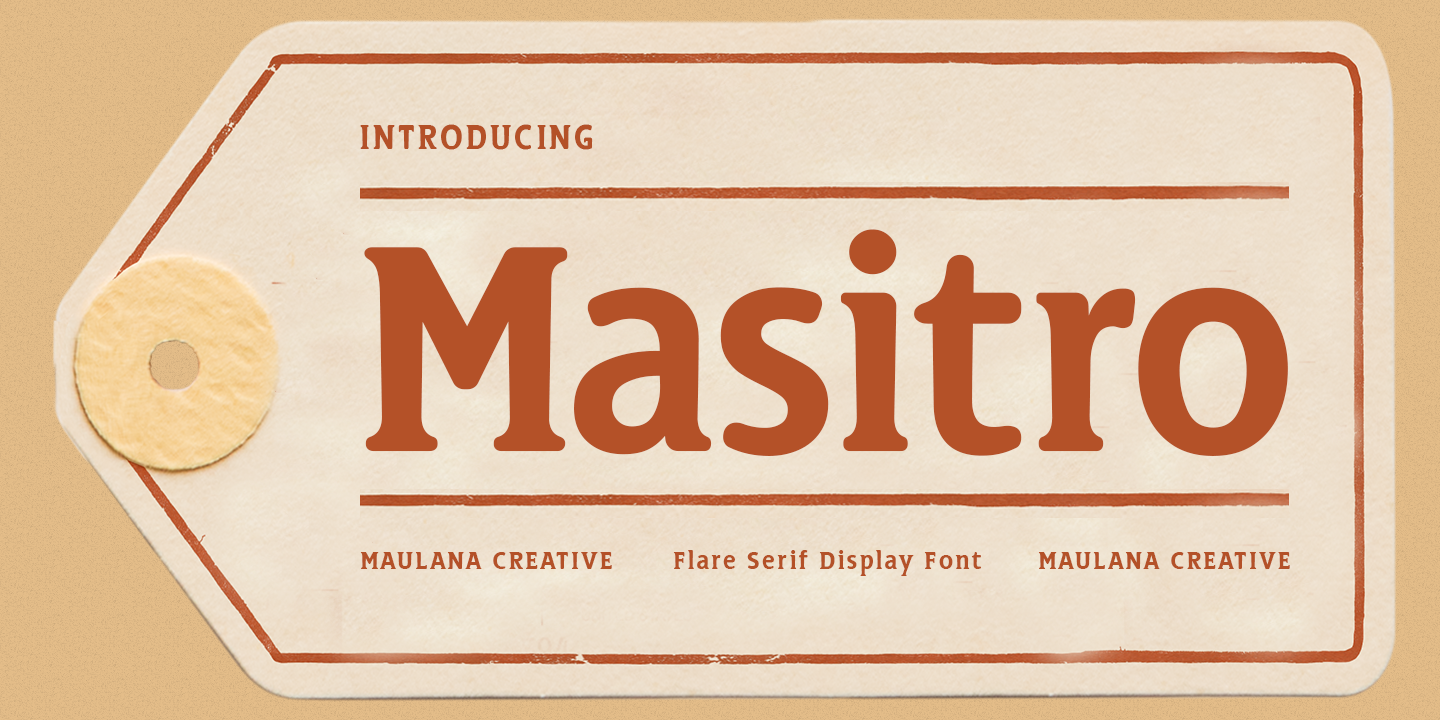
MC Masitro Font is perfect for hip-hop artist branding, urban music events, street culture campaigns, rap battle graphics, underground music venues, urban fashion labels, breakdancing competitions, graffiti art exhibitions, freestyle performance materials, and street-smart applications that celebrate authentic urban culture and musical mastery.
What makes MC Masitro Font truly exciting is its authentic capture of hip-hop mastery and urban artistic excellence that embodies the lyrical skill and street credibility of true musical artistry in urban culture. This exceptional typeface combines rhythmic flow with street sophistication, featuring bold letterforms and confident character that convey both musical talent and urban authenticity. The font's hip-hop personality and street-tested credibility make it perfect for artists and brands seeking to communicate lyrical mastery, urban culture, and the transformative power of authentic musical expression that emerges from real street experiences and artistic dedication.
The MC Masitro Font family includes multiple weights and styles: Light, Regular, Bold, Flow, and Street variations designed for maximum urban impact. Each family member maintains the distinctive hip-hop character while offering flexibility for diverse urban applications and street culture branding systems. The comprehensive character set supports urban typography needs and street design elements, making it suitable for international hip-hop communications.
When you choose MC Masitro Font Free Download, you're selecting a typography master that delivers authentic hip-hop credibility and urban excellence to every street project. This rhythmic typeface excels in applications where musical mastery and street authenticity are fundamental, delivering exceptional urban appeal while maintaining hip-hop legitimacy. Whether you're designing music brands, urban campaigns, street culture materials, or hip-hop marketing content, this font provides the lyrical sophistication and street credibility that resonates with urban audiences who appreciate authentic musical talent, street culture, and the powerful artistic expression that defines true hip-hop mastery and urban cultural excellence.